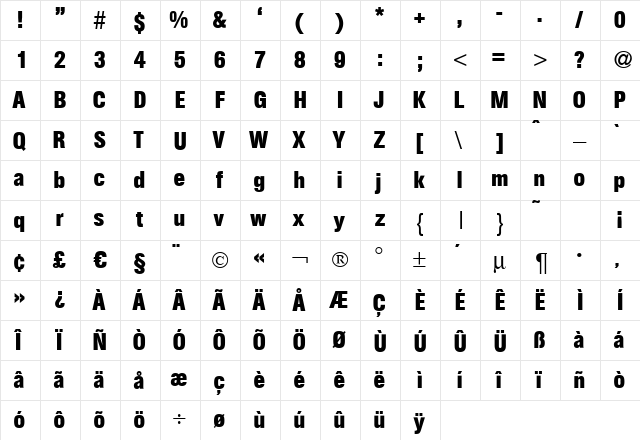
AtkinsCd Bold
Design Context for AtkinsCd Typeface
AtkinsCd takes a measured approach to typography — its balanced proportions and neutral character make it a reliable workhorse for both digital and print work. The heavy weight commands attention and anchors typographic hierarchies.